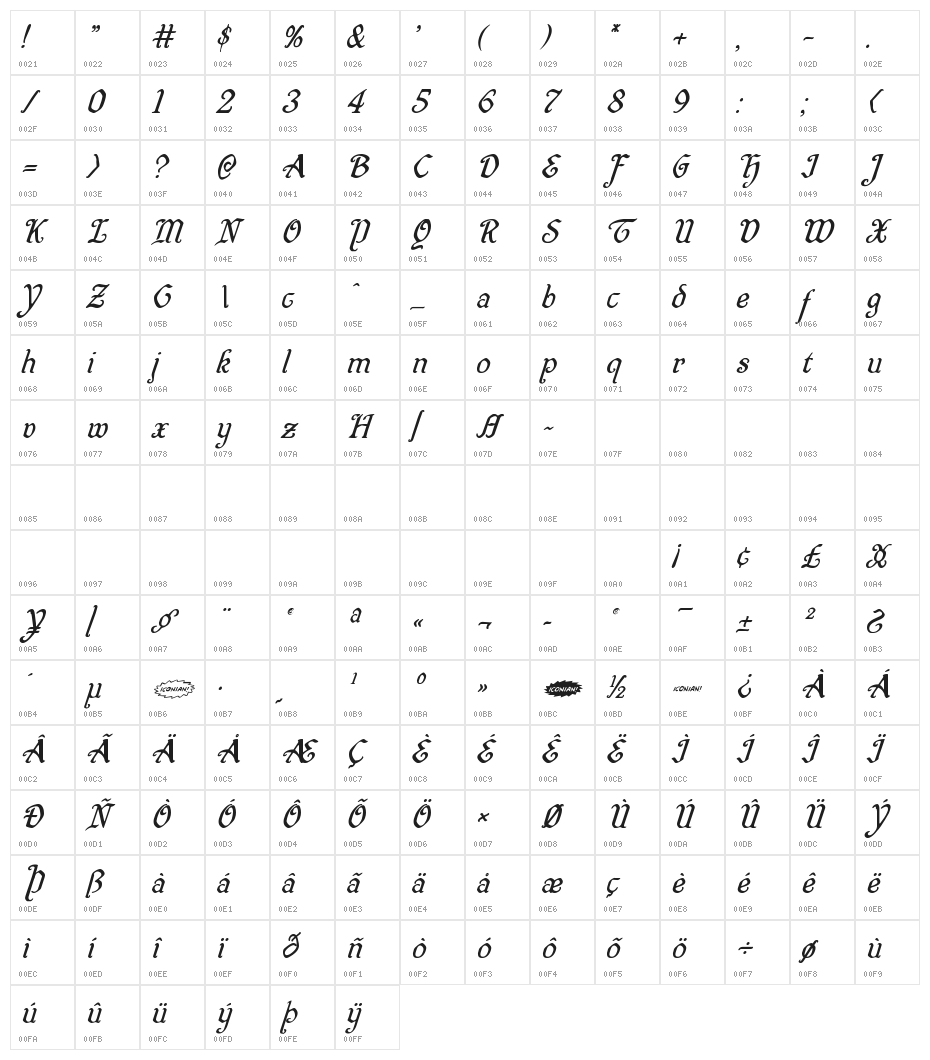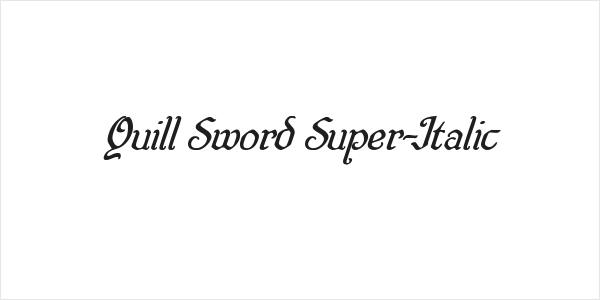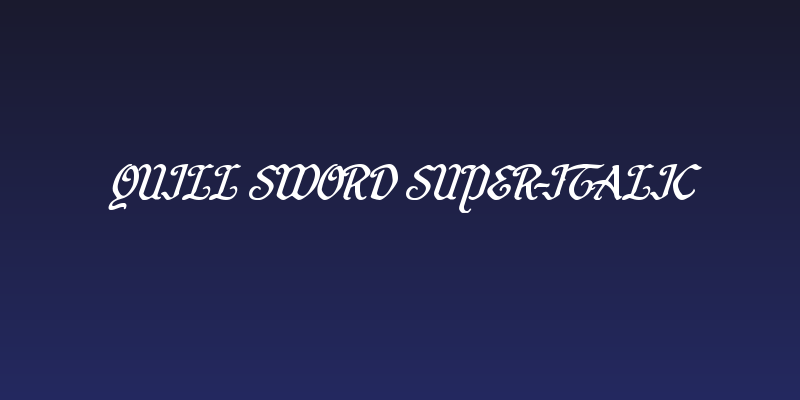
Quill Sword Super-Italic Font
Quill Sword Super-Italic Description
This font features an elegant and flowing script style, characterized by its pronounced slant and smooth, cursive strokes. The uppercase letters are ornate, with decorative flourishes that add a touch of sophistication. The lowercase letters maintain a consistent style, with rounded forms and a fluid connection between characters. The numerals are distinct and maintain the same cursive aesthetic, ensuring readability while preserving the font's artistic flair. Special characters are designed to complement the overall style, with a harmonious blend of curves and angles. This font exudes a sense of elegance and creativity, making it suitable for projects that require a personal and artistic touch.
| Overall Style | Elegant, Artistic |
| Proposed Projects | Ideal for wedding invitations, greeting cards, branding, and artistic projects that require a personal touch. |